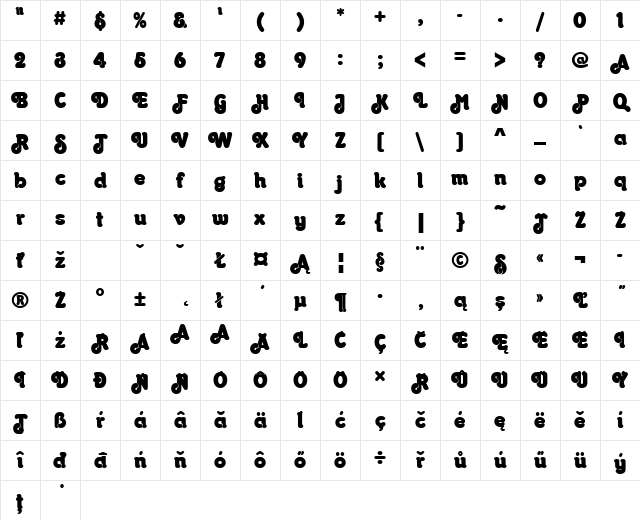
OctopussPEE Regular
Design Context for OctopussPEE
OctopussPEE is a composed and adaptable typeface that performs quietly and consistently across a wide range of design contexts.